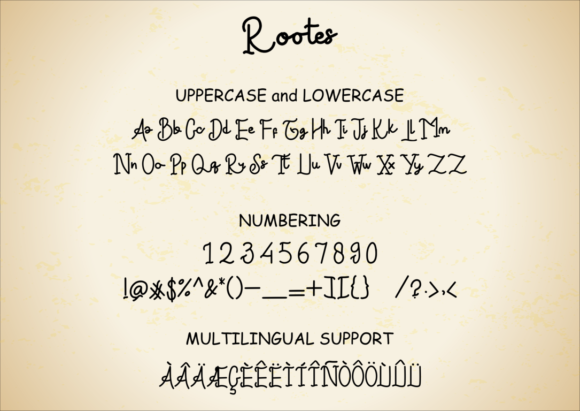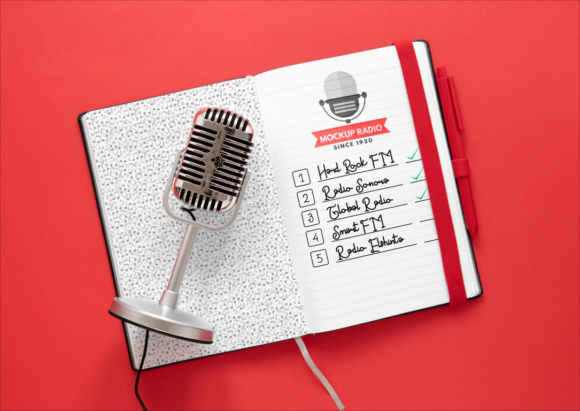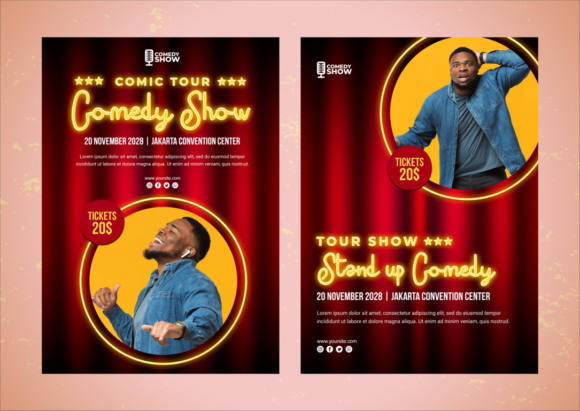
Introduction to Rootes Font
Rootes is a beautiful, well balanced and vintage styled script font.
It is defined by smooth curves and is perfect for fashion branding or editorial designs Add it confidently to your projects, and you will love the results.